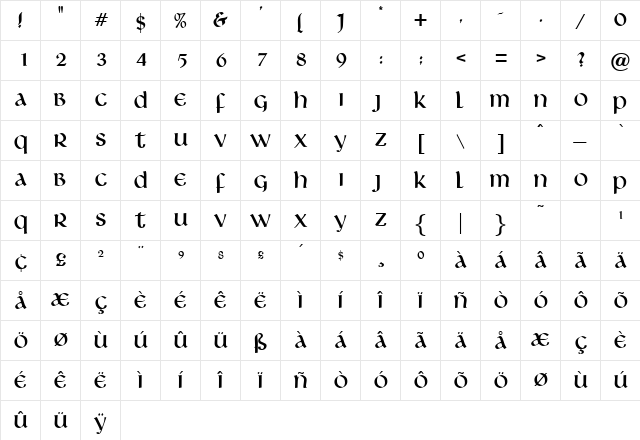
Livingstone Regular Font Preview
Livingstone Regular
Livingstone Regular Font Details
Design Context for Livingstone Typeface
Livingstone is a composed and adaptable typeface that performs quietly and consistently across a wide range of design contexts.